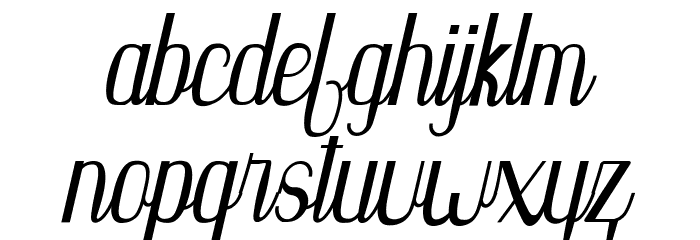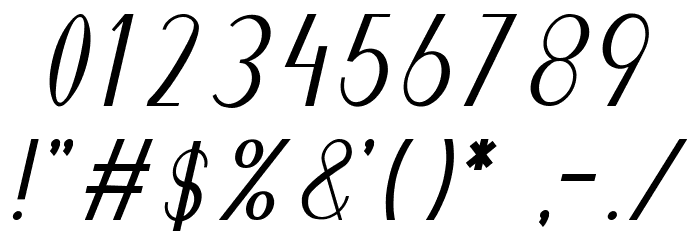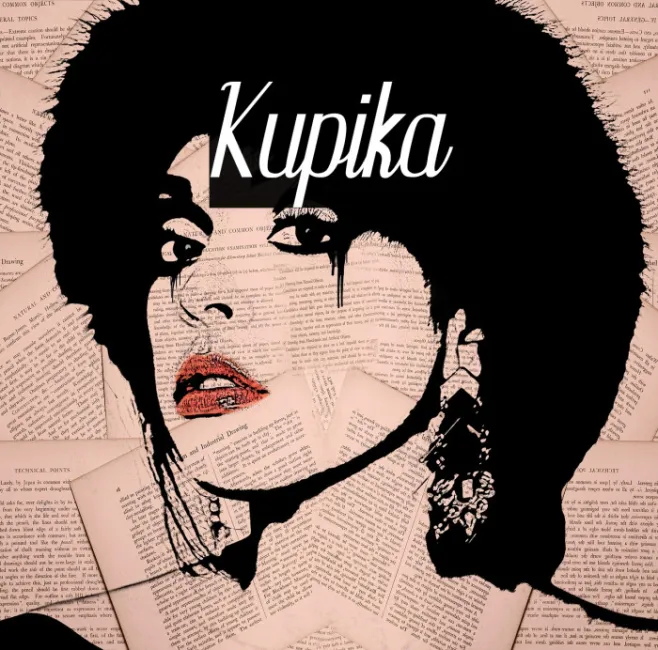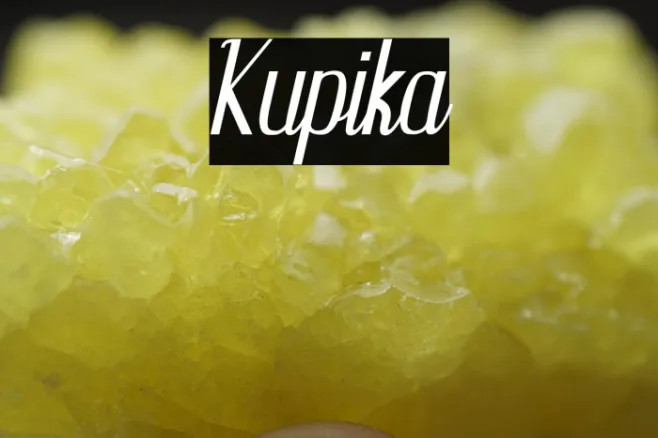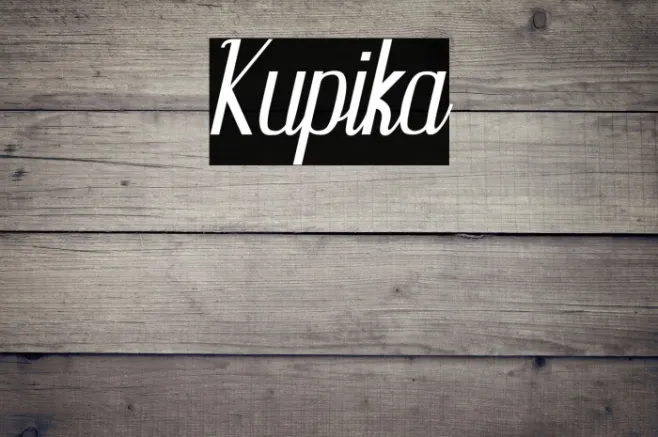
Kupika Font
This font features a stylish and elegant script design, characterized by its flowing and connected letterforms. The uppercase letters exhibit a sophisticated flair with elongated strokes and subtle curves, while the lowercase letters maintain a consistent rhythm and smooth transitions. The numerals are designed with a similar elegance, ensuring readability while maintaining the overall aesthetic. Special characters are thoughtfully integrated, complementing the font's cohesive look. The font's design is both modern and timeless, making it suitable for a variety of applications.
A stylish and elegant script font with flowing, connected letterforms.
- Proposed Projects: Ideal for wedding invitations, branding projects, elegant signage, and sophisticated editorial design.
- Use Case: Logos, Invitations, Editorial Design